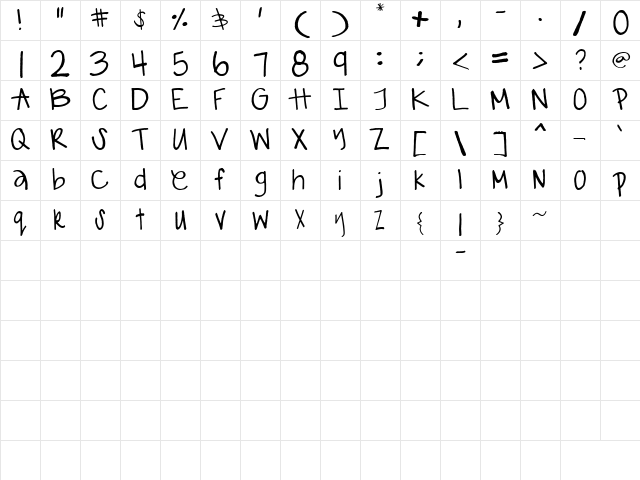
Complete gabiies handwritting Regular glyph index. Displaying only characters natively supported by gabiies handwritting Regular font.
gabiies handwritting flows with the natural rhythm of handwritten lettering, making it ideal for designs that call for warmth and personal expression.
Font Pairing: Combine gabiies handwritting with a simple geometric sans for maximum contrast - the tension between flowing curves and clean structure is a classic typographic pairing.
Pro Tip: Use gabiies handwritting for short runs of text - names, titles, or taglines. Extended body copy in script faces tires the eye quickly.